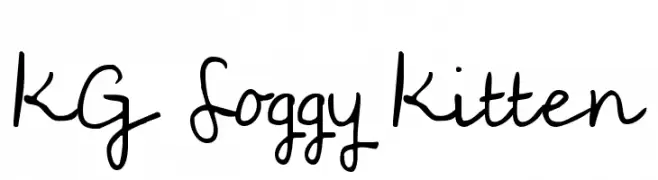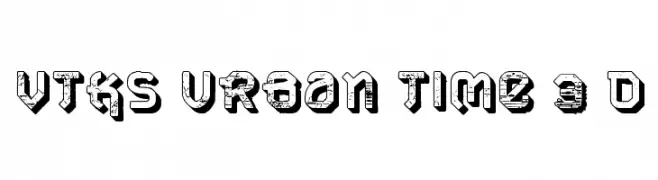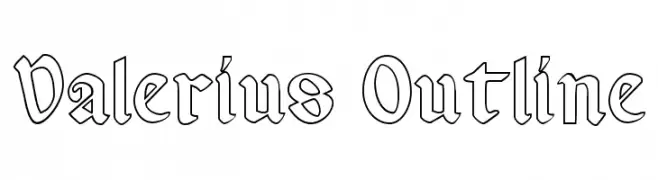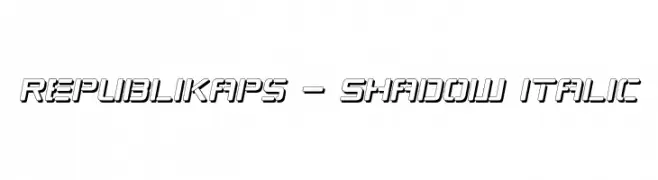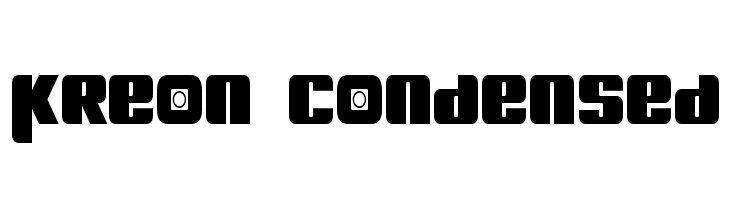
A bold, geometric font with a futuristic and modern design.
A bold, distressed font with a 3D shadow effect, perfect for urban-themed designs.
A futuristic, italic font with sharp angles and a dynamic style.
A bold, three-dimensional font with a shadow effect, ideal for impactful headlines.
Business-themed pictogram font with office and teamwork silhouettes.
An outlined, angular blackletter-style font with sharp serifs and geometric forms.
Bold, italicized font with a shadow effect for a 3D look.
A playful and whimsical handwritten font with fluid, looping letterforms.